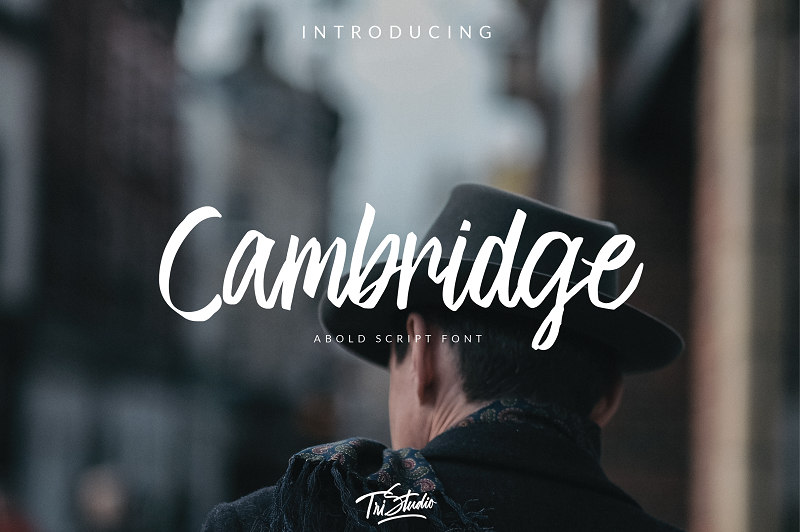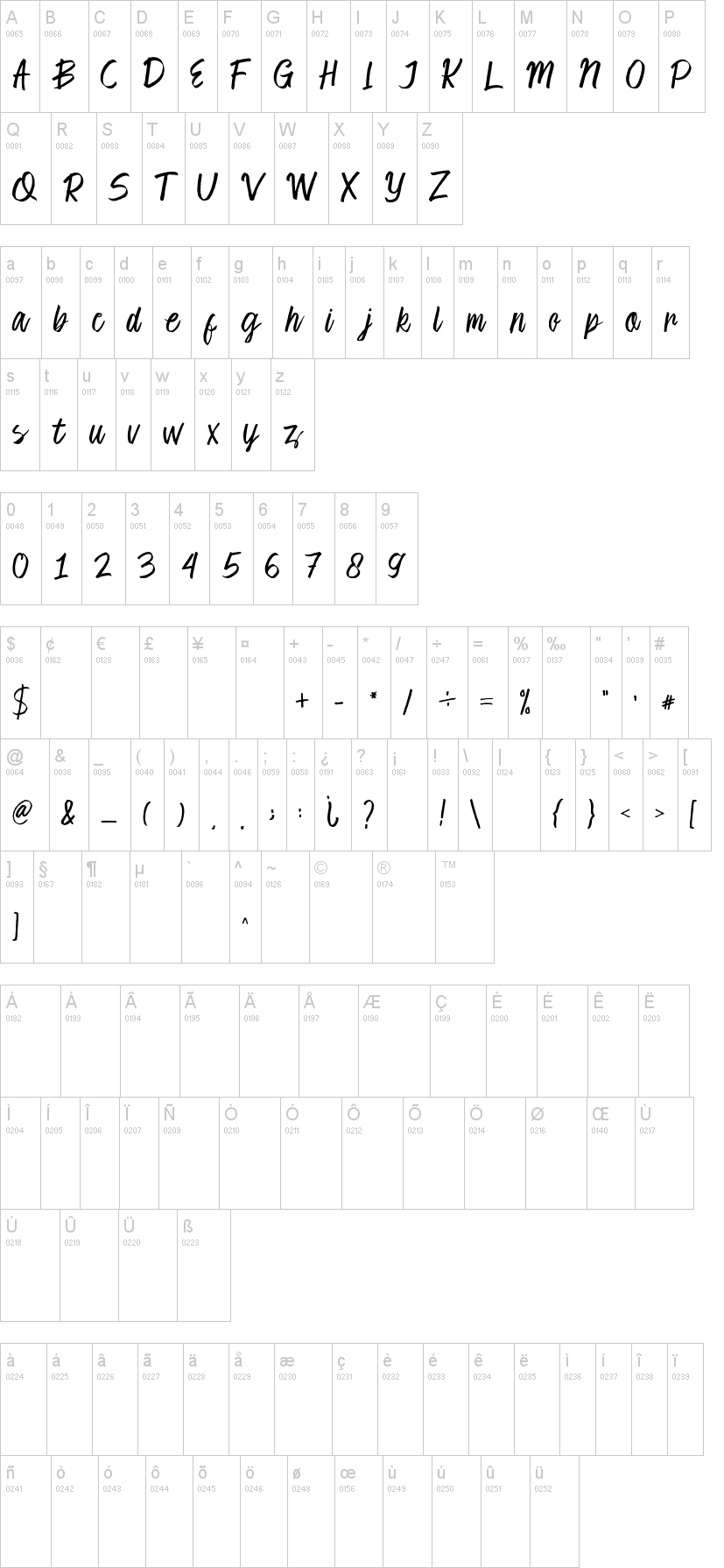
Cambridge
Note of the authorCambridge has bold brush type scripts, which contain uppercase, lowercase letters, symbols, etc. This type of font is suitable for use in invitation card designs, watermarks, brochure designs, business cards, shirt designs, many landing designs.